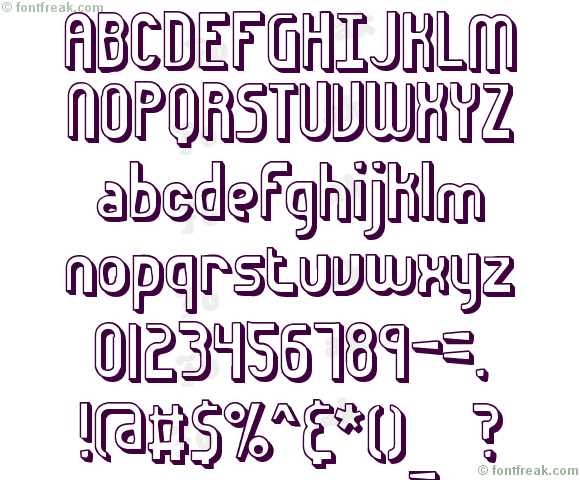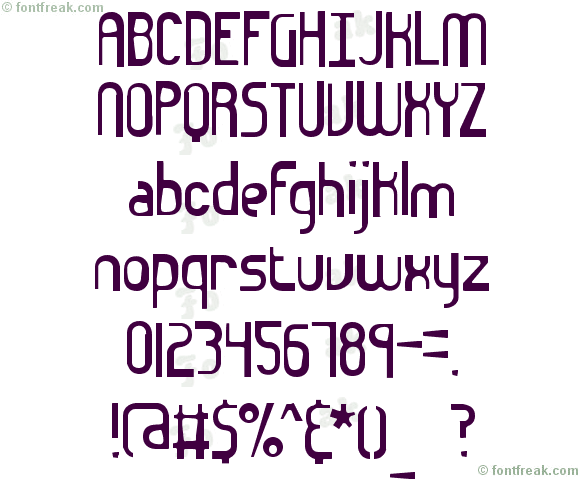
Euphoric -BRK-
Euphoric 3D -BRK-
About Euphoric
Euphoric by Ænigma Fonts is a captivating display font that embodies a unique blend of modernity and playfulness. As a decorative typeface, Euphoric features bold, three-dimensional letterforms that instantly draw the eye. The stroke weight is consistent, yet it varies slightly to add depth and dimension, creating a visually striking effect. Its clean lines and balanced spacing ensure legibility, while the playful curves and angles introduce an energetic flair, making it perfect for various creative projects.
Euphoric is an excellent choice for wedding invitations, where its whimsical nature can set a joyful tone. It also shines in movie posters, capturing attention with its bold presence and dynamic design. Restaurant menus can benefit from its unique aesthetic, making dishes stand out and enticing patrons. Additionally, this font is ideal for event flyers, where a lively and inviting appearance is essential. Content creators and graphic designers will find Euphoric particularly appealing, as it offers a fresh alternative to conventional fonts, allowing for innovative branding and promotional materials.
What truly sets Euphoric apart is its ability to evoke a sense of joy and excitement. Its three-dimensional quality and playful design not only make it visually engaging but also versatile for a range of applications. Whether used in print or digital formats, Euphoric is sure to leave a lasting impression on viewers, making any project feel more vibrant and alive.